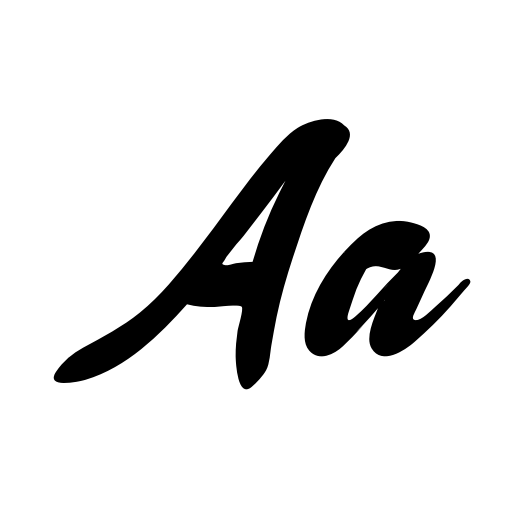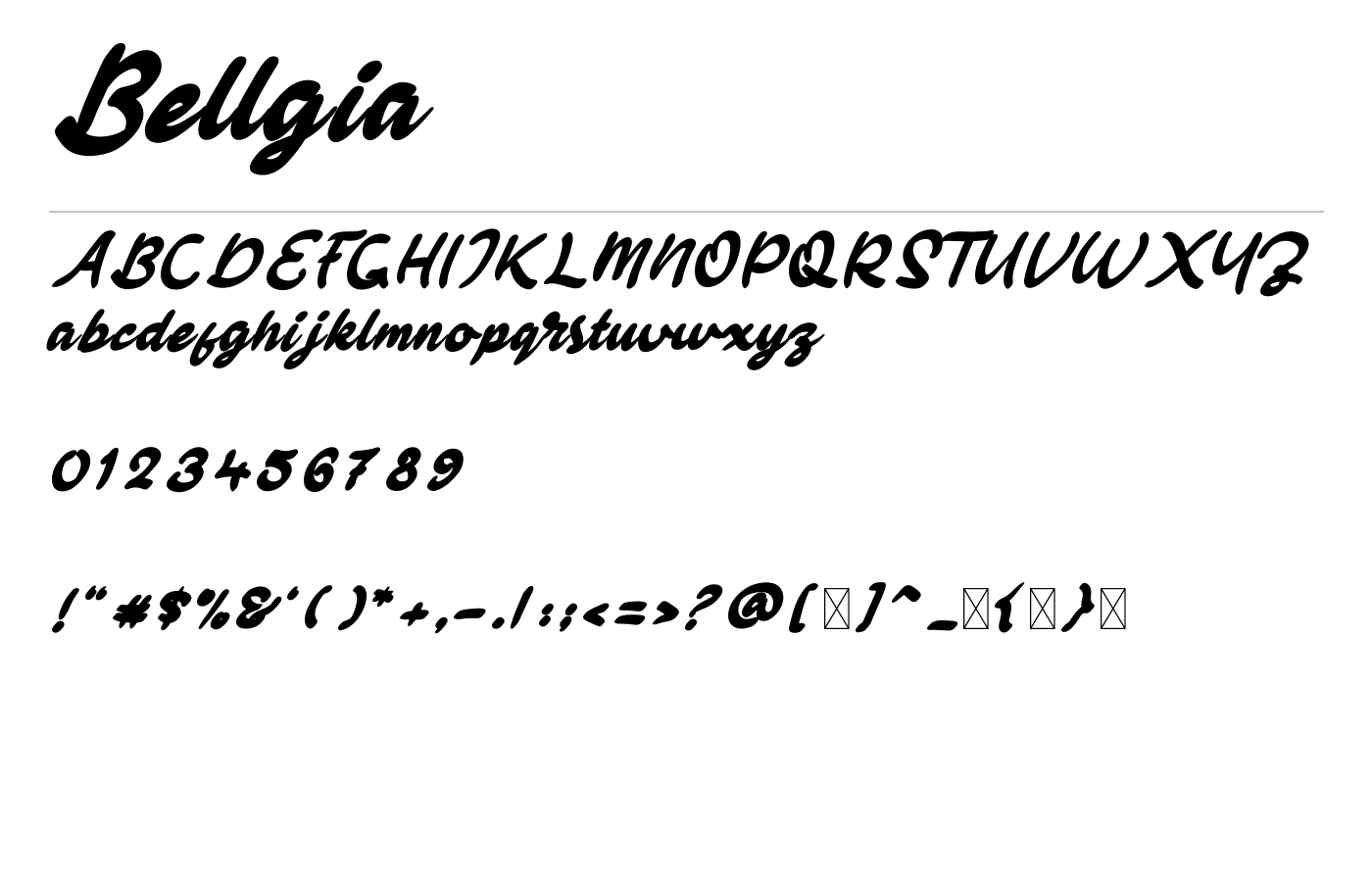
Bellgia is a bold, energetic script font with a smooth and flowing style that combines a modern brush-lettering feel with a touch of elegance. Its rounded, moderately condensed letterforms and lively contrast give it a dynamic and approachable personality, making it ideal for branding, headlines, and creative projects that want to convey warmth and vibrancy. This font works well for logos, invitations, and packaging where a friendly yet stylish impression is desired.
Bellgia Font
About Bellgia Font